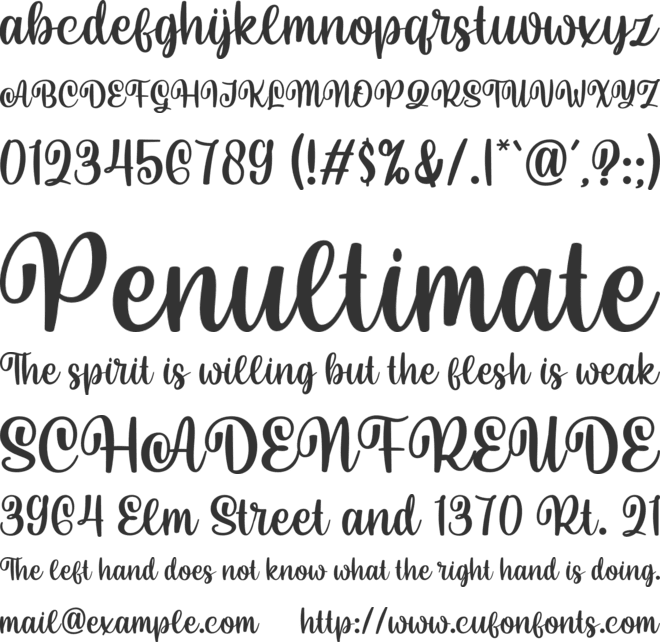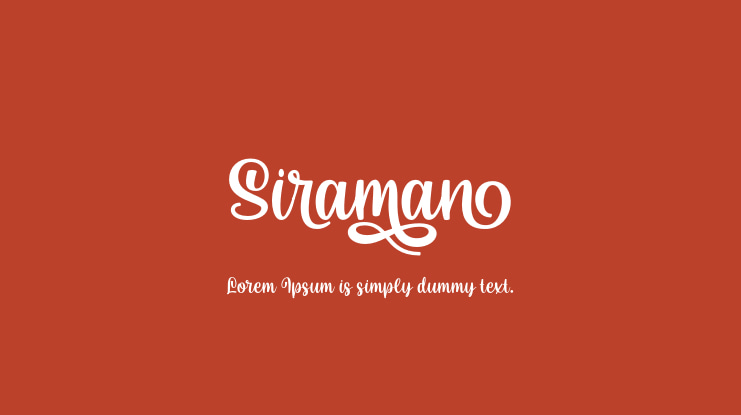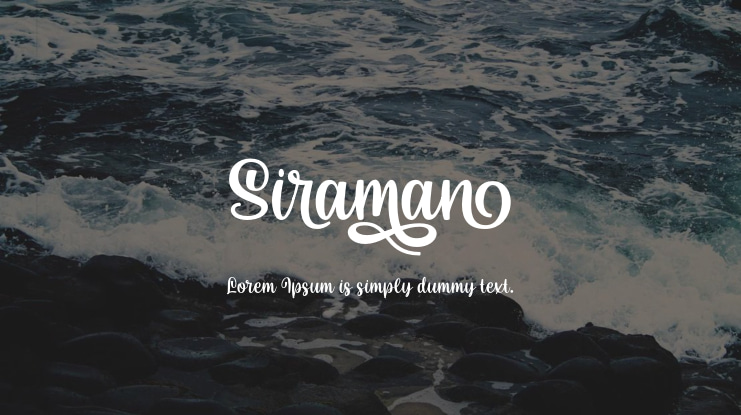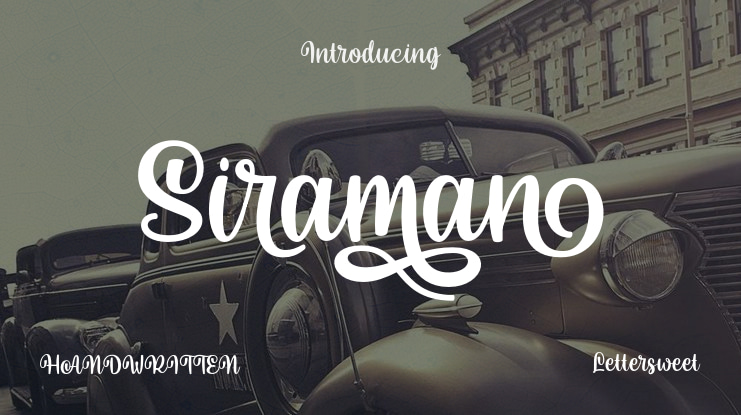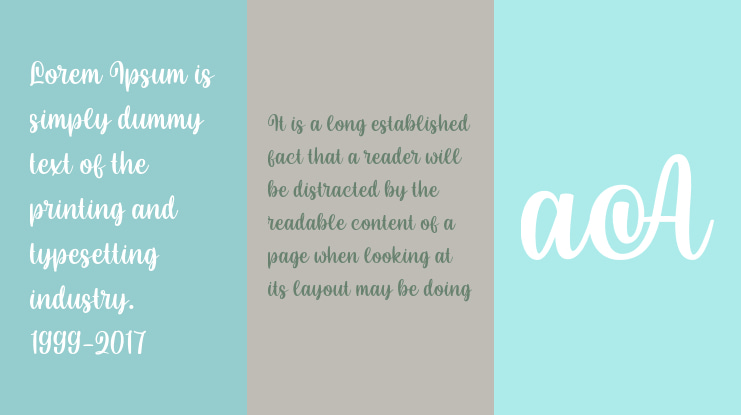
Siraman Font
Introducing Siraman – the captivating handwritten font that’s a creative game-changer. Packed full of alternative styles, Siraman injects an irresistible charm into your logos, branding, and quotes, making every design stand out. Its effortlessly elegant style ensures your designs are not just noticed, but remembered. Plus, with PUA encoding, all glyphs and swashes are easily accessible, making Siraman not just a beautiful choice, but also a practical one for your typography needs.